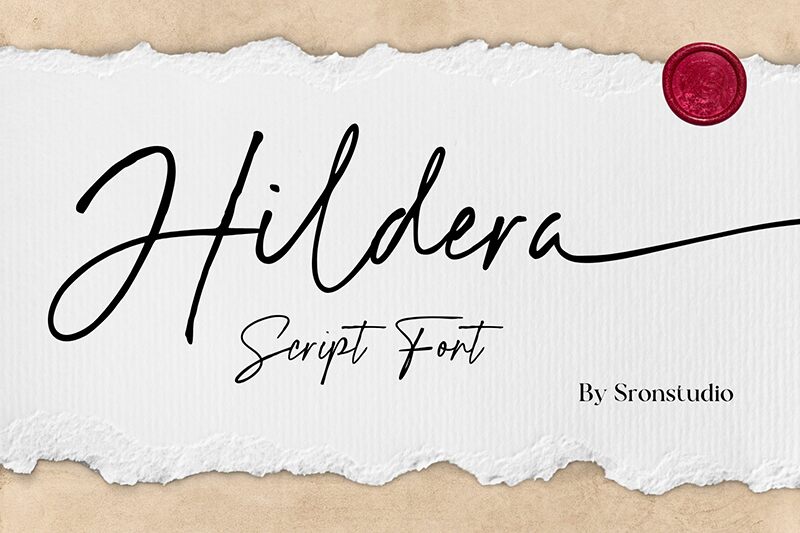
Hildera
Hildera font, a light handwritten creation by Sronstudio, showcases an expressive and fluid character. Its contemporary design is marked by an elegant and natural flair that lends a sophisticated touch to any project. This free signature script font exudes a graceful presence through its effortlessly stylish aesthetic.
Embrace Hildera for the flawless execution of classic brand logos, wedding invitations, business cards, certificates, headlines, magazines. Use it as well over book covers, coffee shop signage & menus, product labels & packaging items.